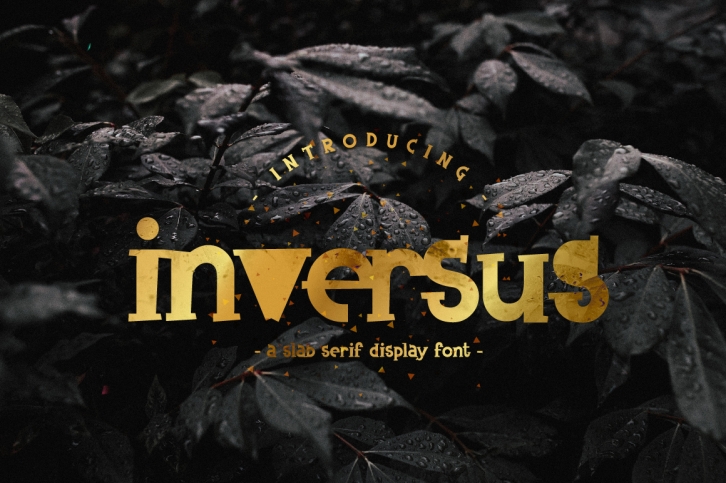
Inversus u2013 a slab serif display is a beautiful font that was designed by chekart. It's a great choice for designers and creatives who need such a font. It was released on February 3, 2017 and the file size is 7.83 MB. Inversus u2013 a slab serif display may give a more youthful, expressive and casual look to your project. It is a very beautiful, refined, elegant, and high-quality font.